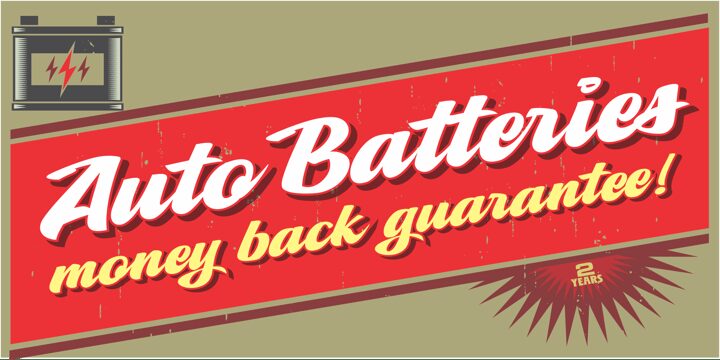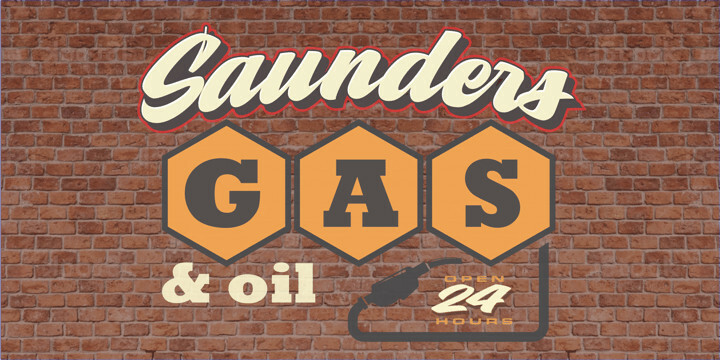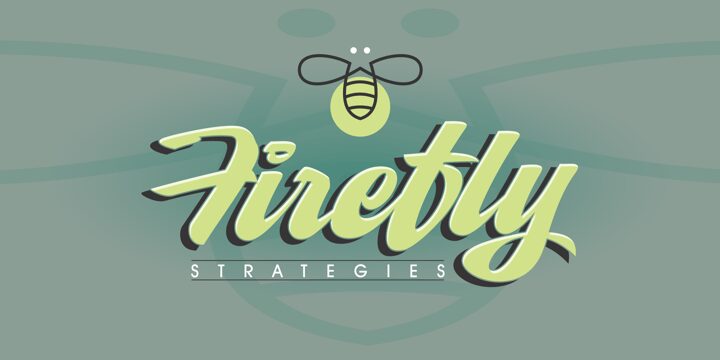
Aplin Script Font
Aplin Script FontThis hand-lettered italic script is another versatile font produced by Jeff Marshall. Named after the late Ron Aplin, who mentored Jeff as an apprentice sign writer early in his career. This font includes 19 unique ligatures and 15 alternate special ending glyphs.